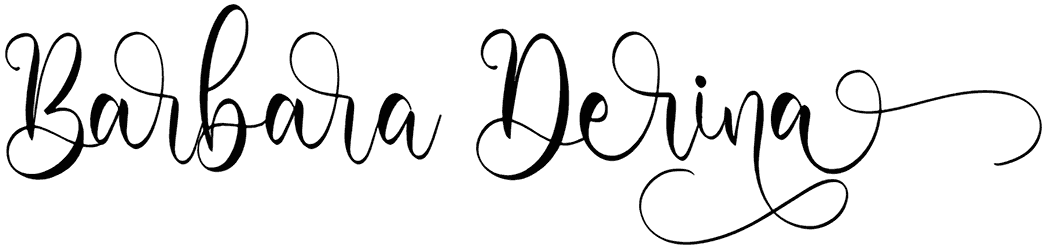
Barbara Derina Font
Don’t pass this gorgeous calligraphy font with a delicate and charming form. Barbara Derina, with its nice and catchy mood, is a flawless choice for any design, particularly with its two versions of support. Just pick Barbara Derina up and place it on your upcoming project, such as business cards, cosmetics products, branding, or the like, and show a well-dressed one.